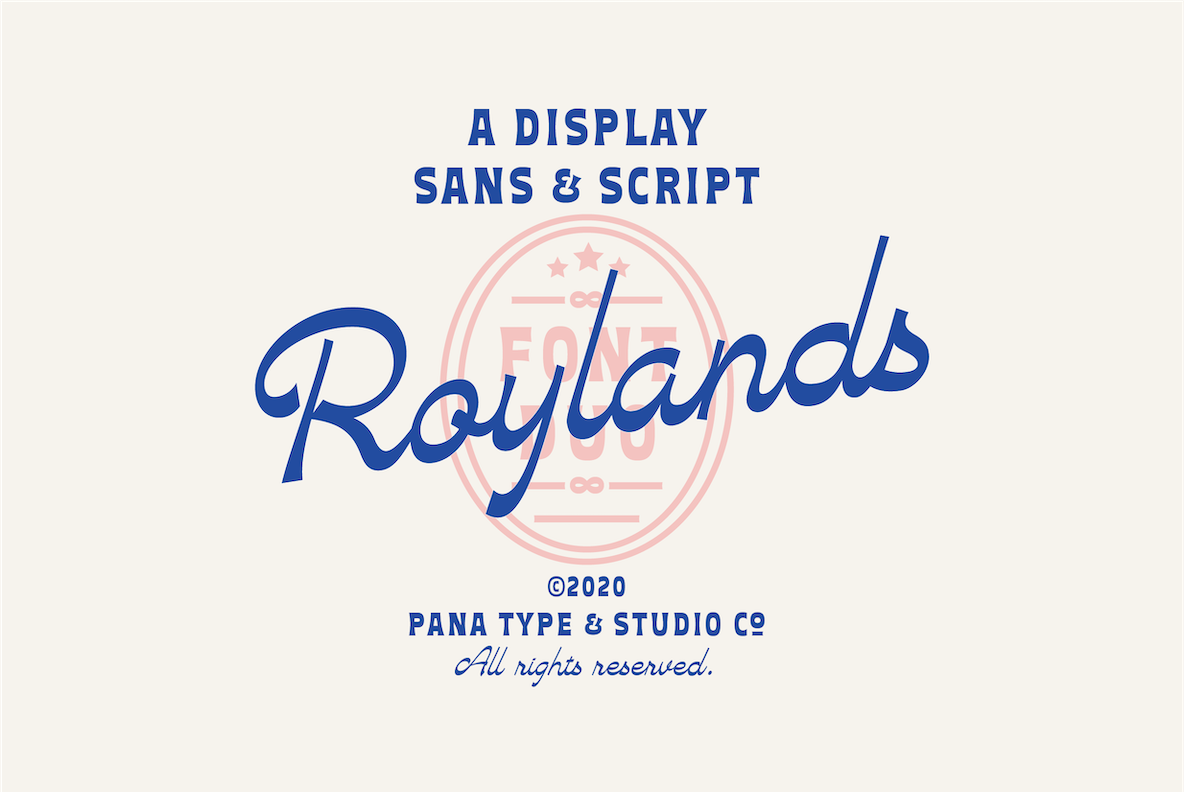
Roylands Font Duo
Royland Font Duo is a mathing pair of fonts, inspired by a simple yet elegant vintage graphic design, carefully crafted, and opentype features to support is perfect for graphic design needs.